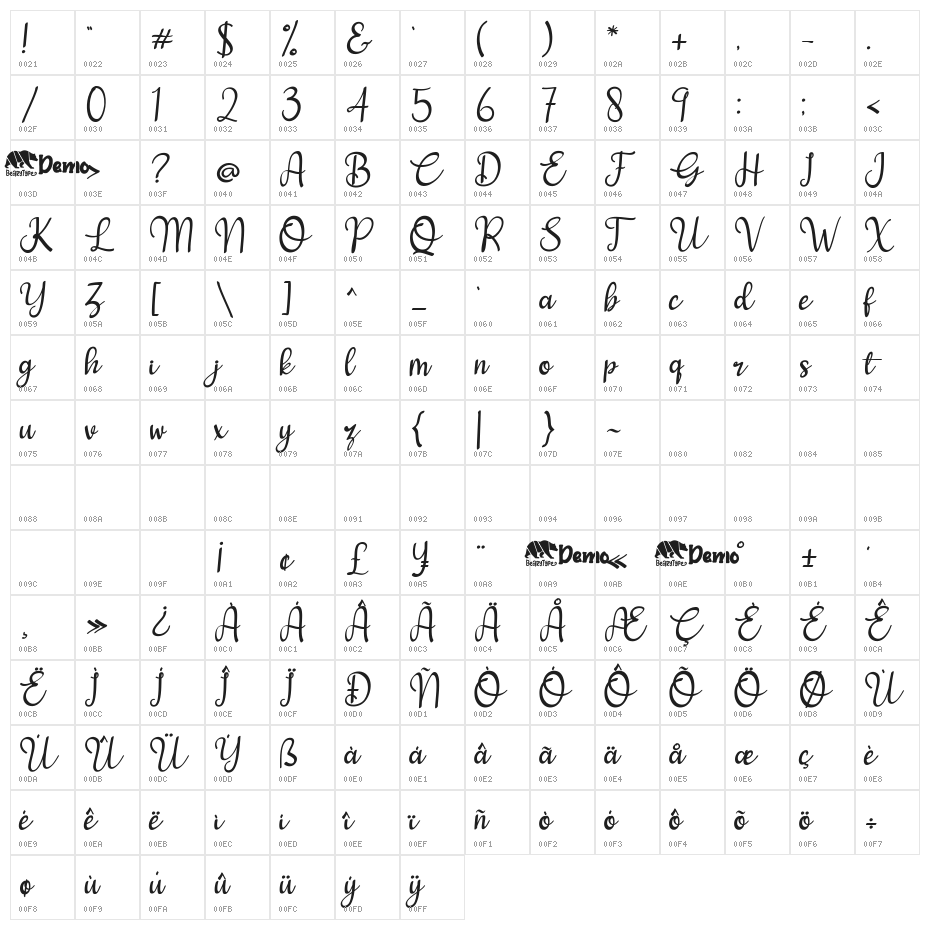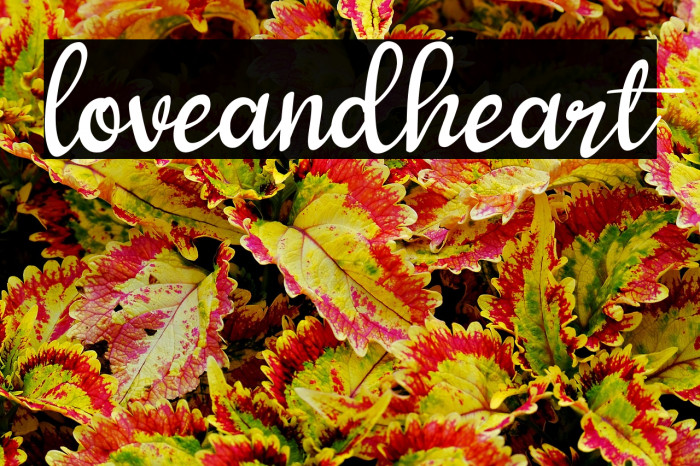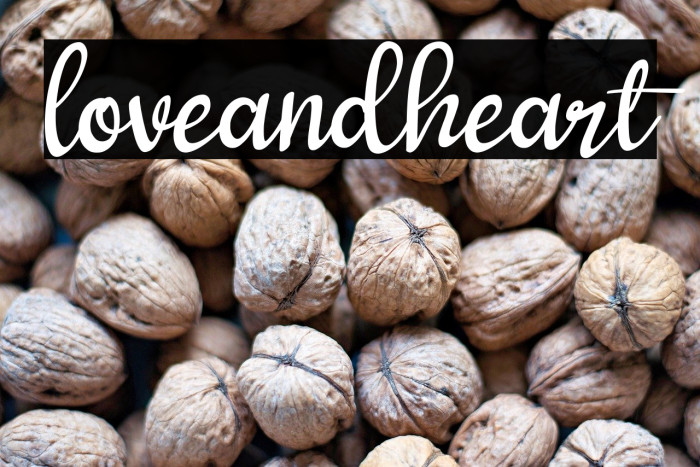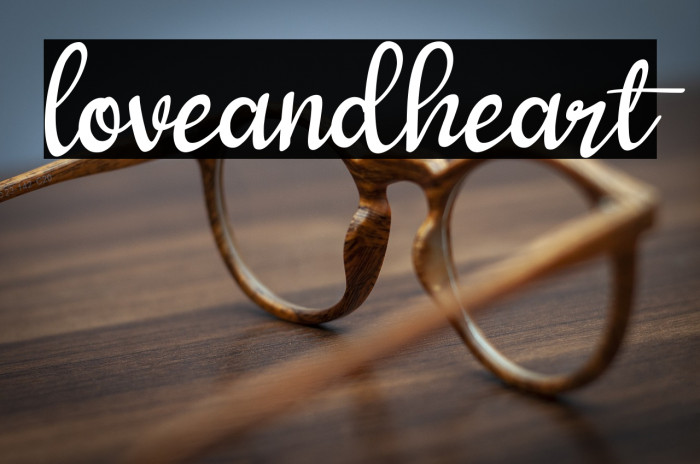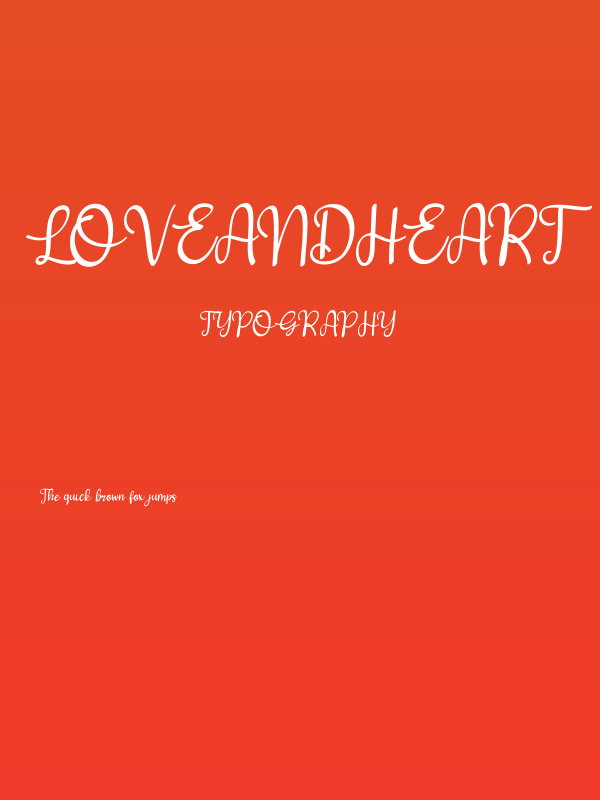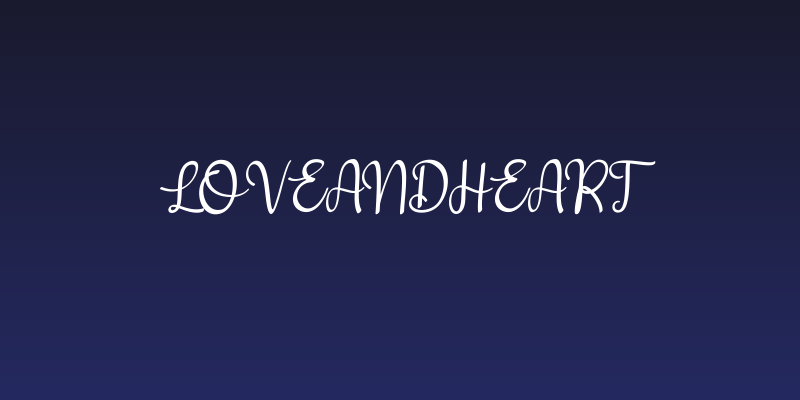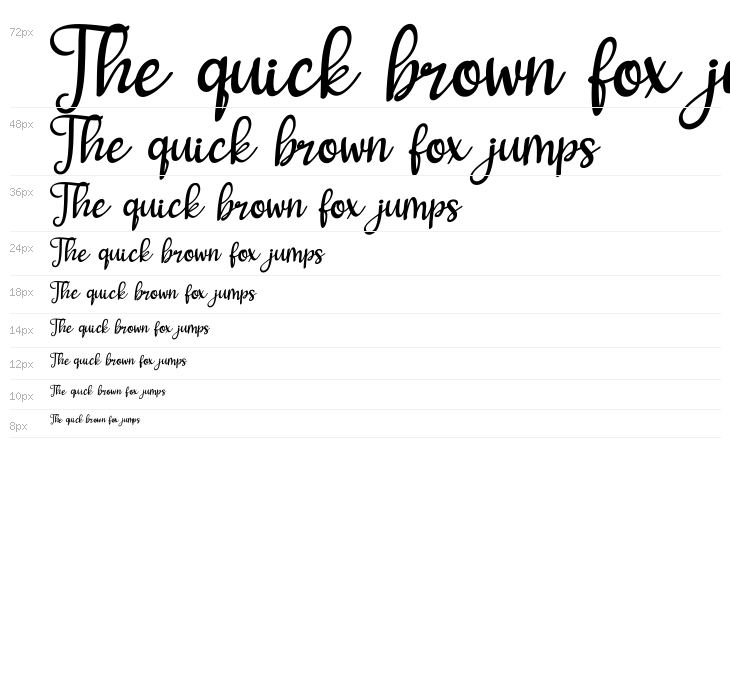
loveandheart Font
loveandheart Description
This font features a playful and elegant script style, characterized by its flowing, connected letters that mimic the fluidity of handwriting. The uppercase letters are ornate with loops and swirls, while the lowercase letters maintain a more consistent baseline, enhancing readability. The numerals are distinct and maintain the same whimsical style, making them suitable for creative projects. Special characters are well-integrated, maintaining the overall aesthetic. The font's design exudes a sense of warmth and creativity, making it ideal for projects that require a personal touch.
| Proposed Projects | Ideal for wedding invitations, greeting cards, logos, and branding materials that require a personal and elegant touch. |